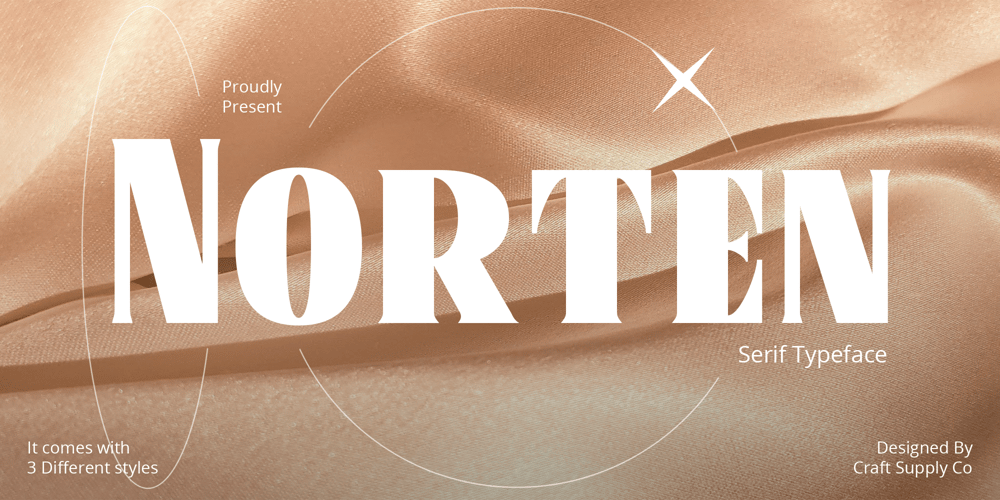
Norten Font Family was designed by Trio Nazzar Saputra, Wahyu Hadi Yuana and published by Craft Supply Co. Norten contains 3 styles and family package options. Introducing Norten Serif TypefaceFirst and foremost, Norten Serif Typeface is a classic serif typeface. It stands out with its clean, all-caps design. Significantly, this font exudes a sense of versatility, making it a staple for design needs.Design and UsabilitySubsequently, its design offers a seamless balance, fitting for both print and web. Hence, Norten adapts effortlessly to diverse design challenges, becoming an essential in your creative toolkit.Readability and AestheticsMoreover, the font is crafted to prioritize readability. Its distinct serifs enhance character separation. Thus, it ensures outstanding readability, even at smaller sizes.